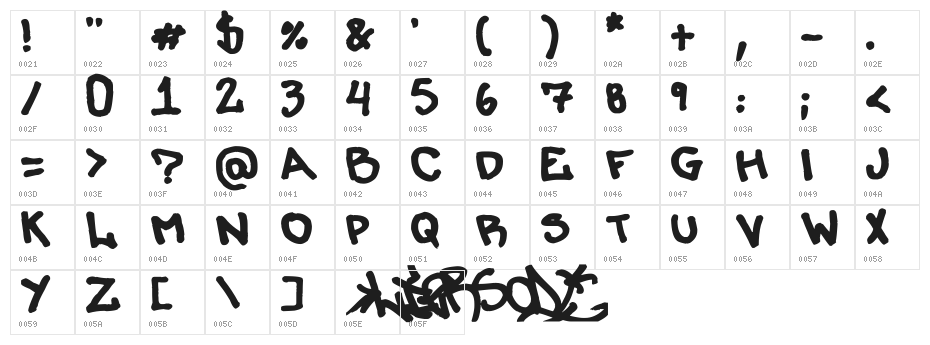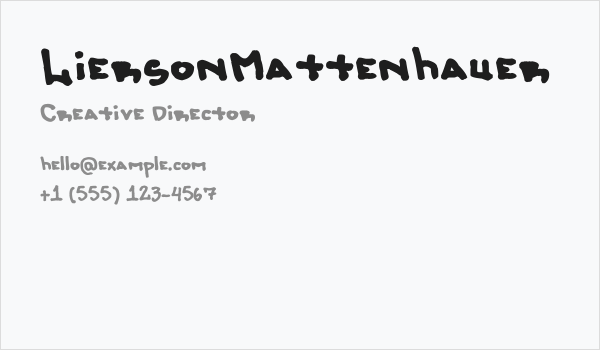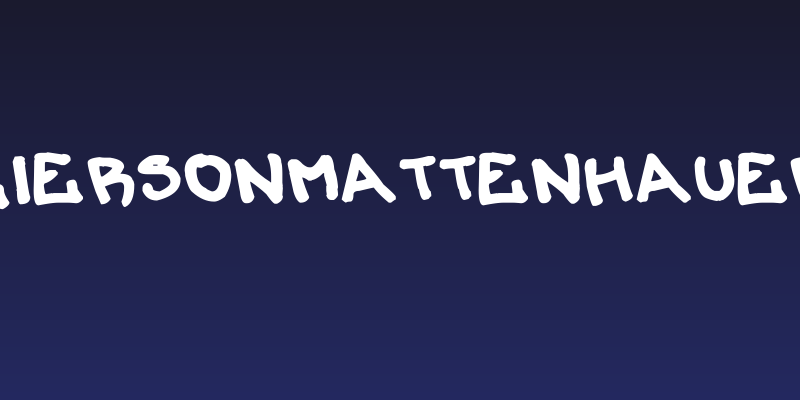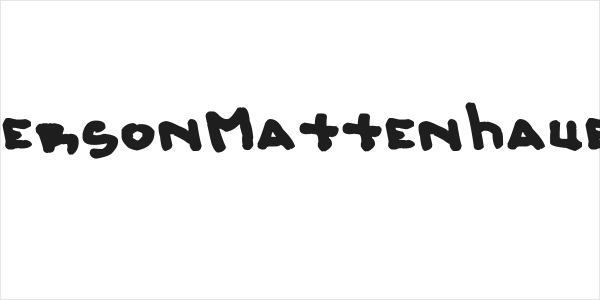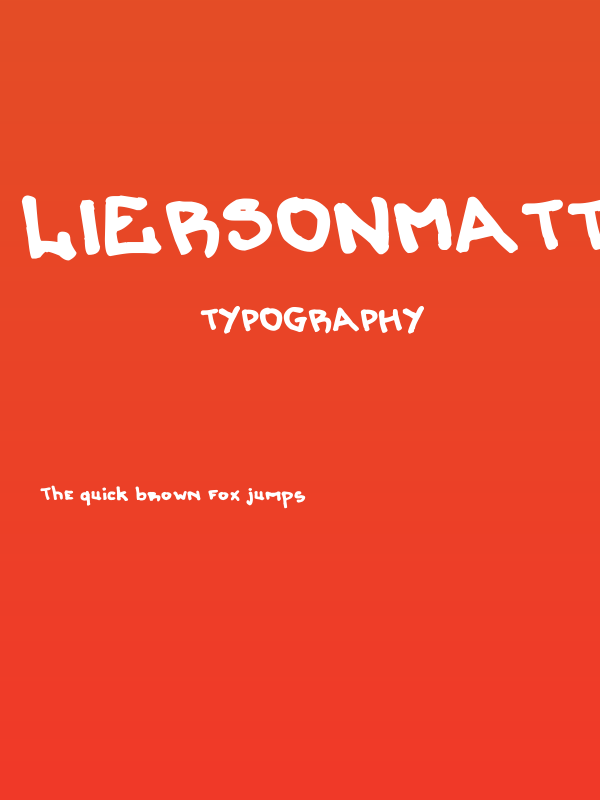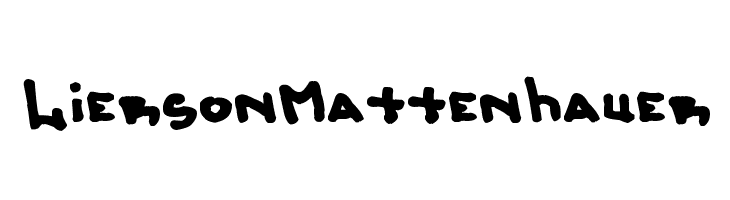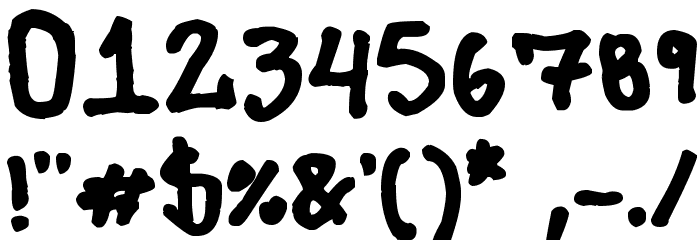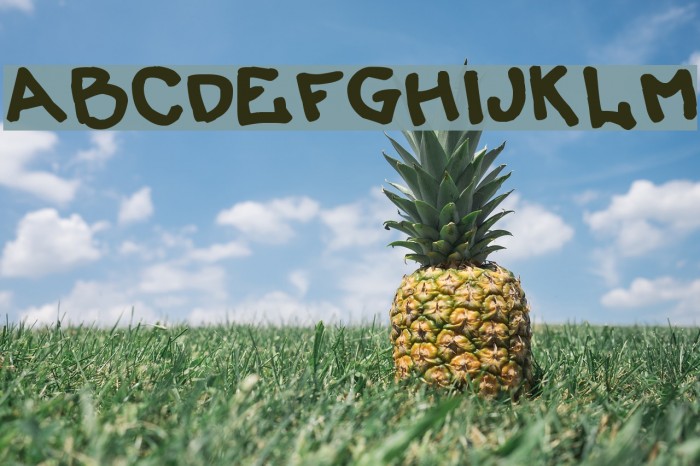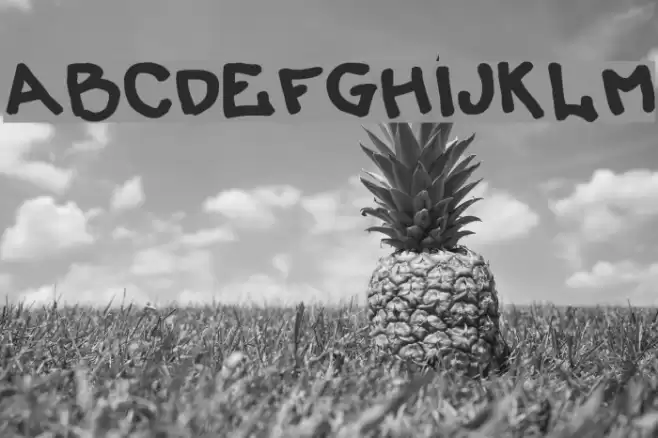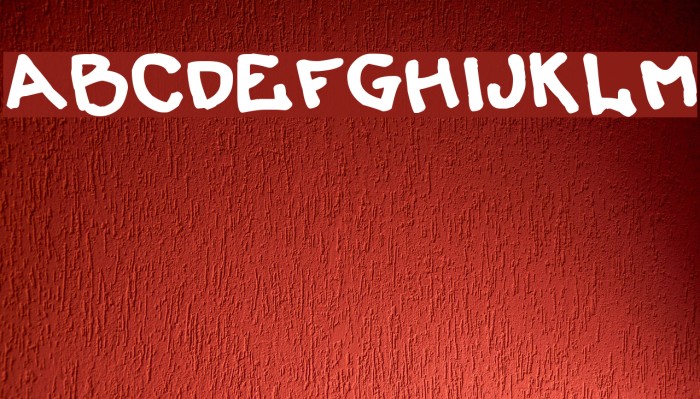
LiersonMattenhauer Font
LiersonMattenhauer Description
This font exudes a playful and informal vibe, characterized by its bold and uneven strokes that mimic a hand-drawn style. The letters are slightly irregular, giving it a casual and approachable feel. The uppercase and lowercase letters maintain a consistent style, with rounded edges and a somewhat chunky appearance. The numbers and special characters follow the same aesthetic, ensuring a cohesive look across all elements. This font is ideal for projects that require a personal touch, such as children's books, casual invitations, or creative branding.
| Overall Style | Casual, Playful |
| Use Case | Headlines, Logos, Informal Text |
| Proposed Projects | Children's books, casual invitations, creative branding, playful posters. |